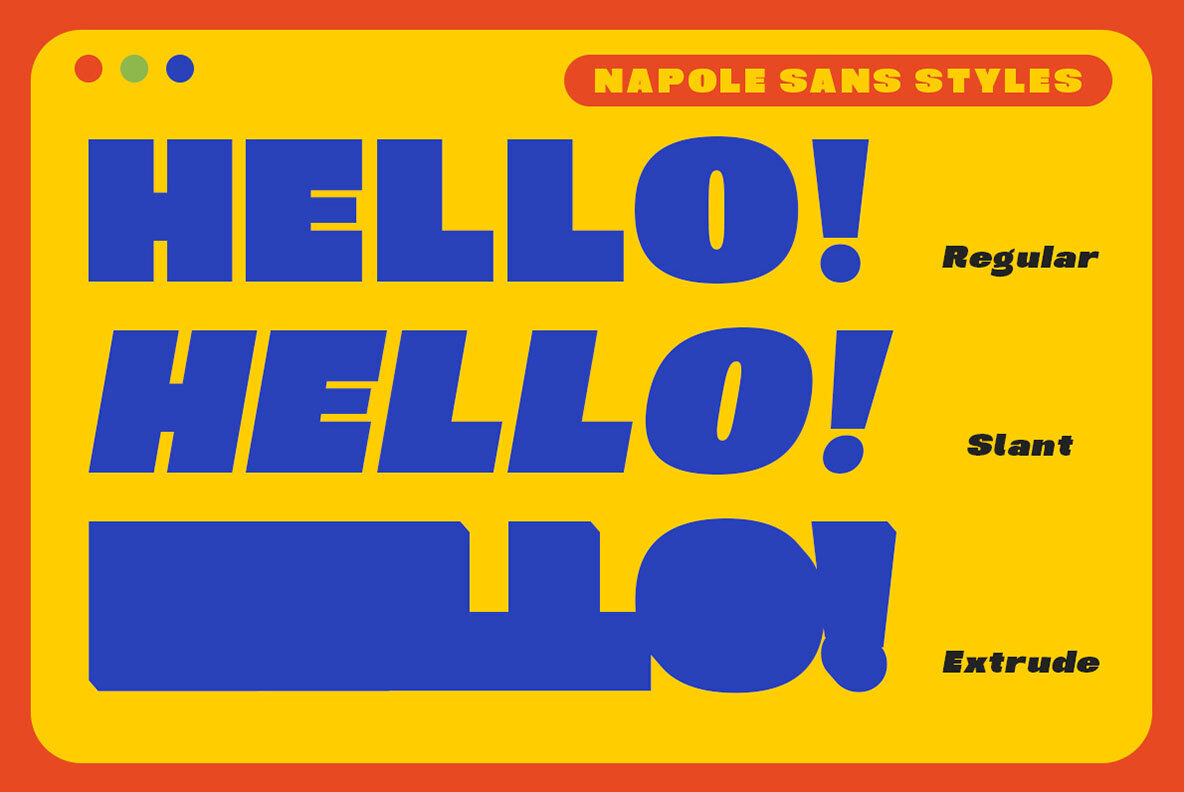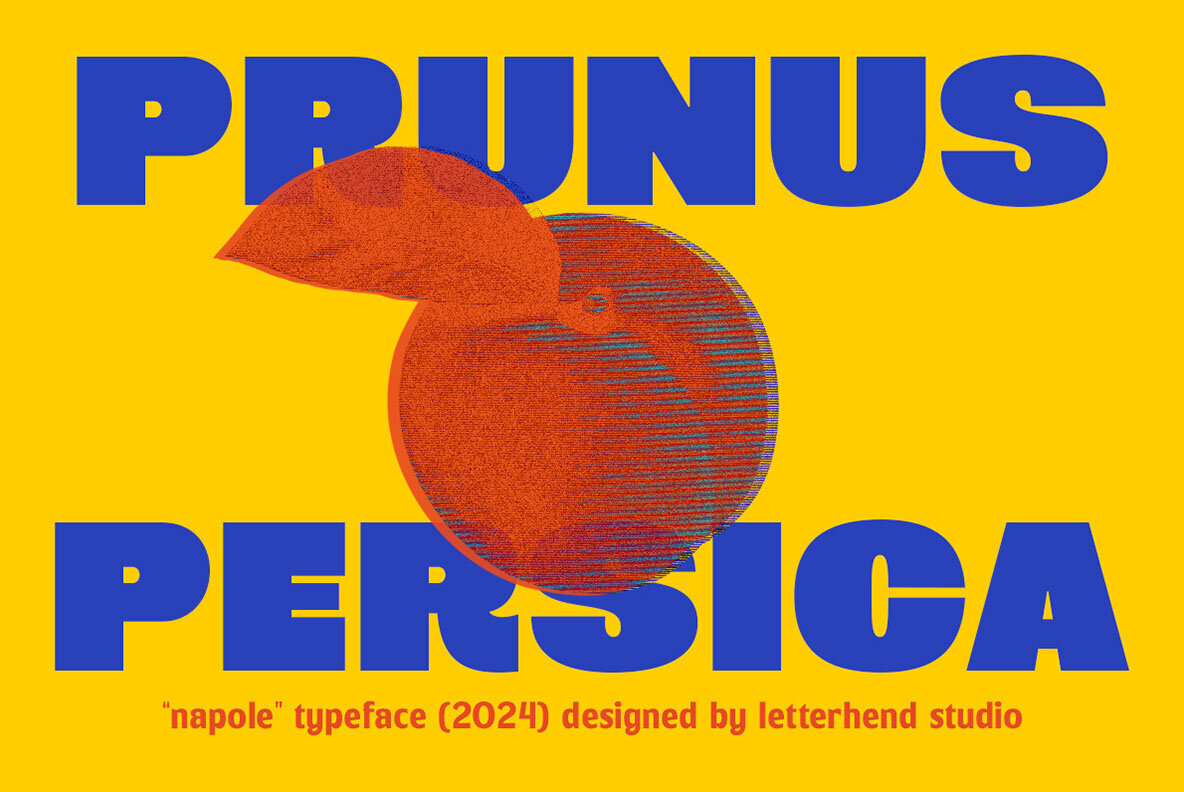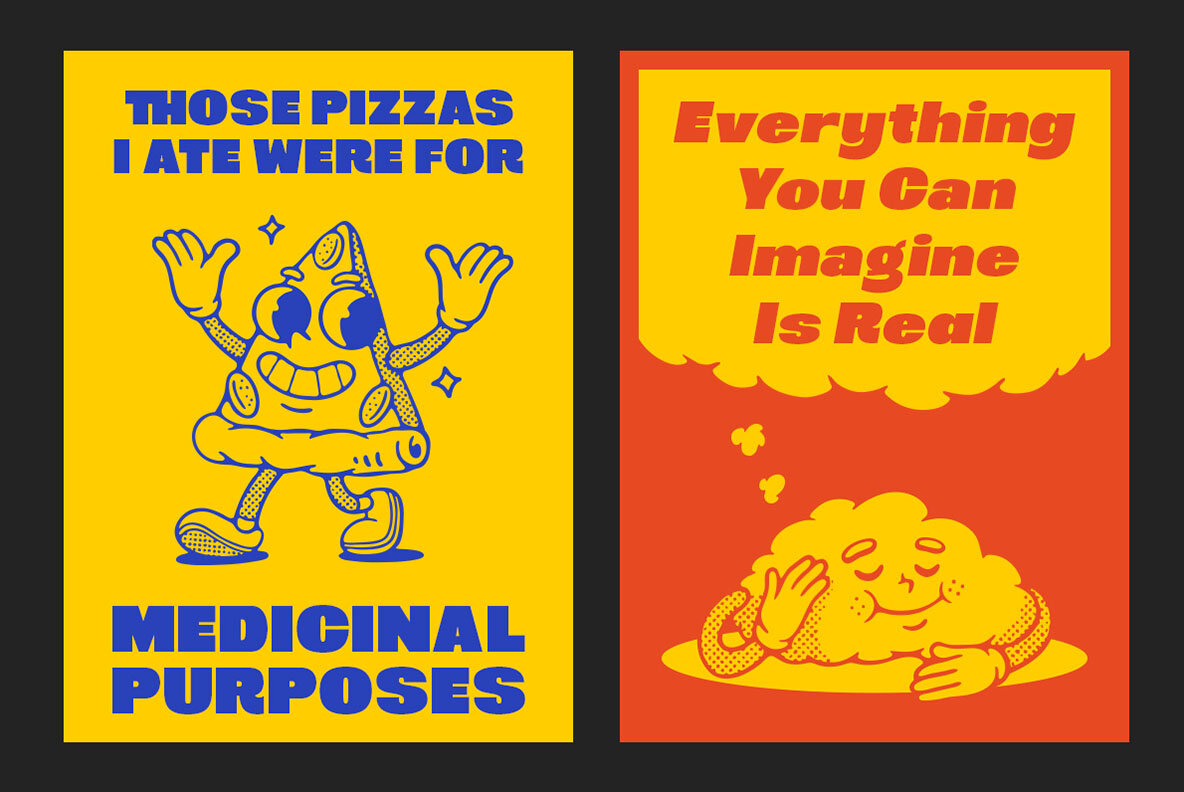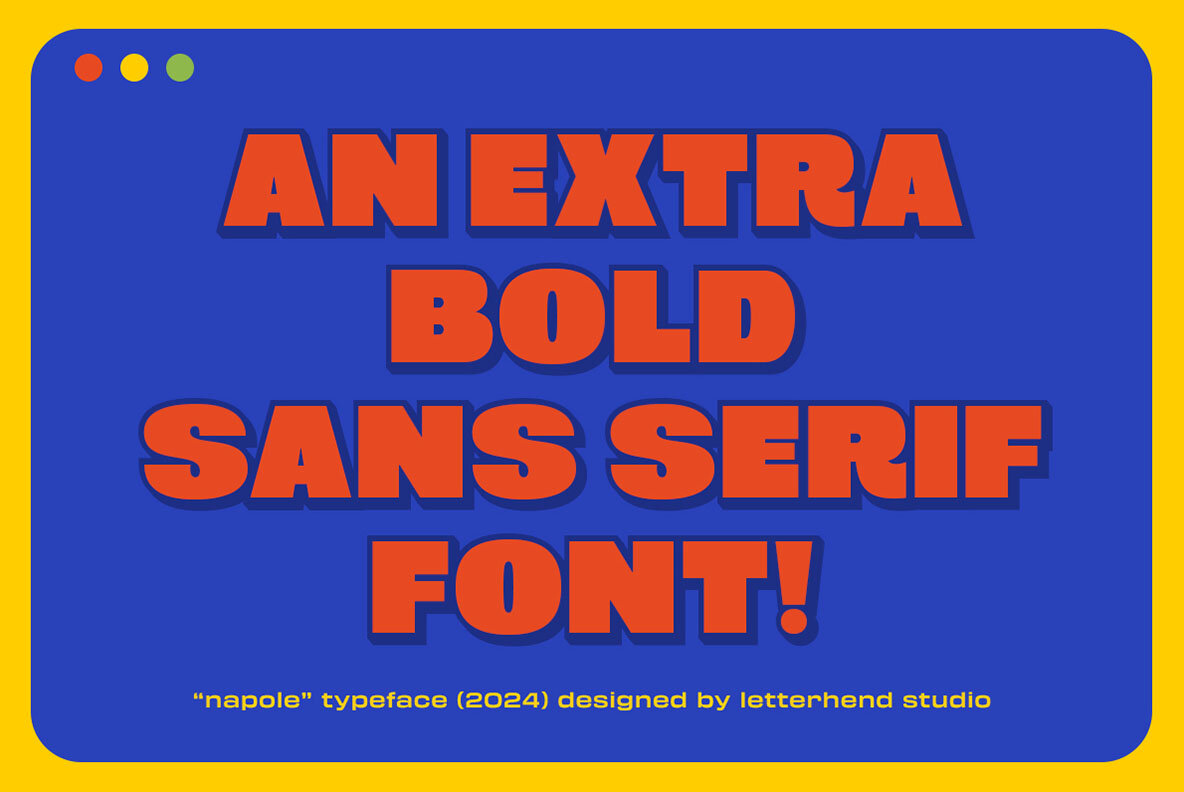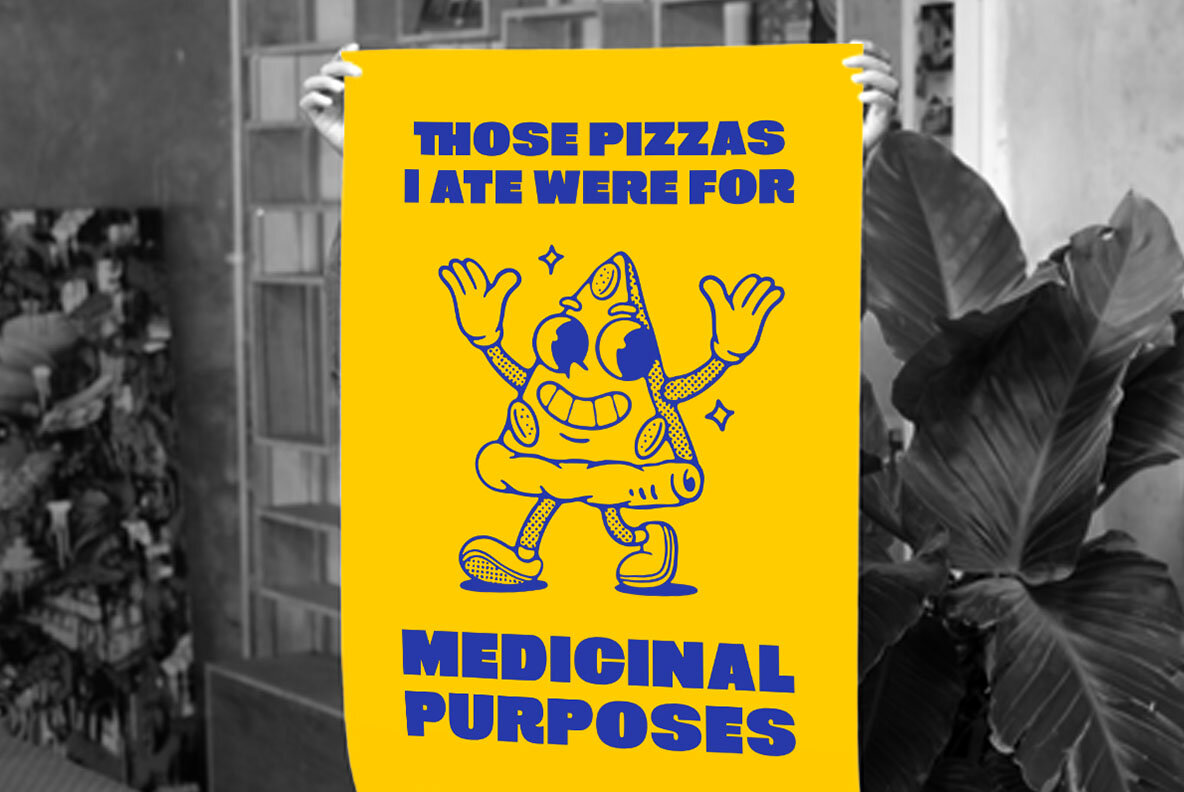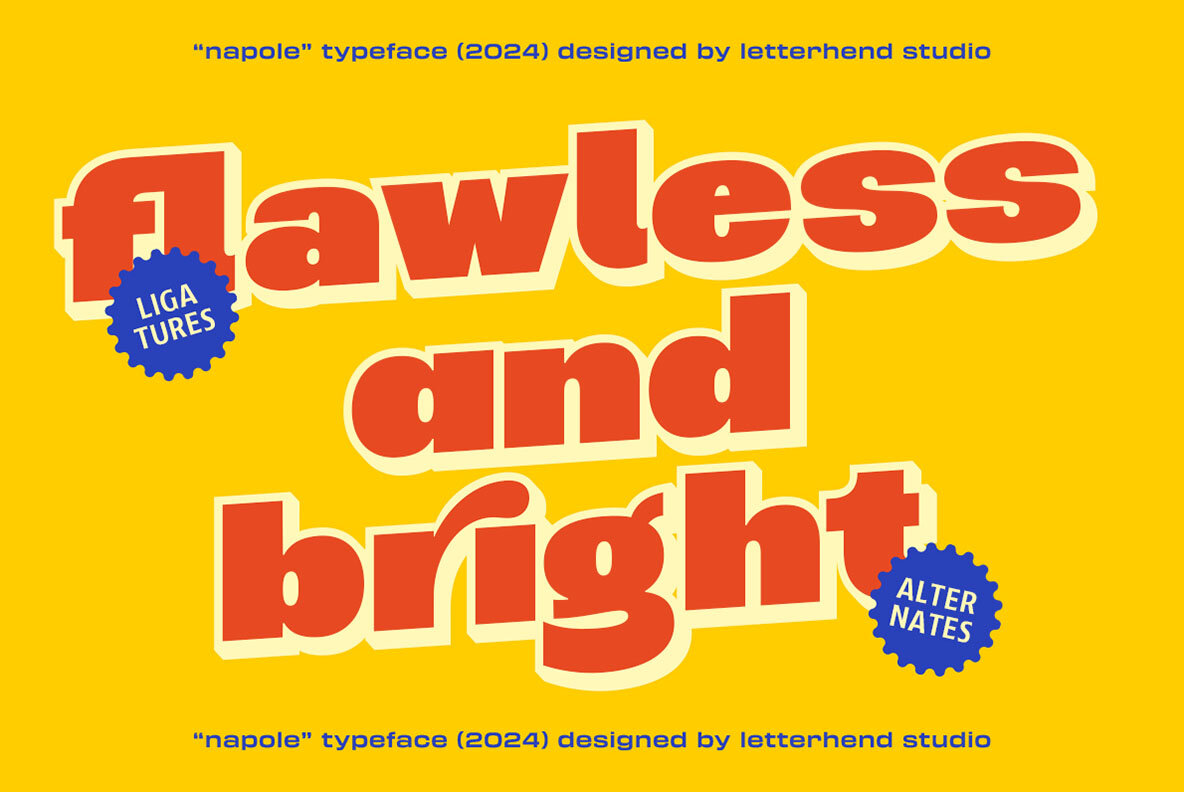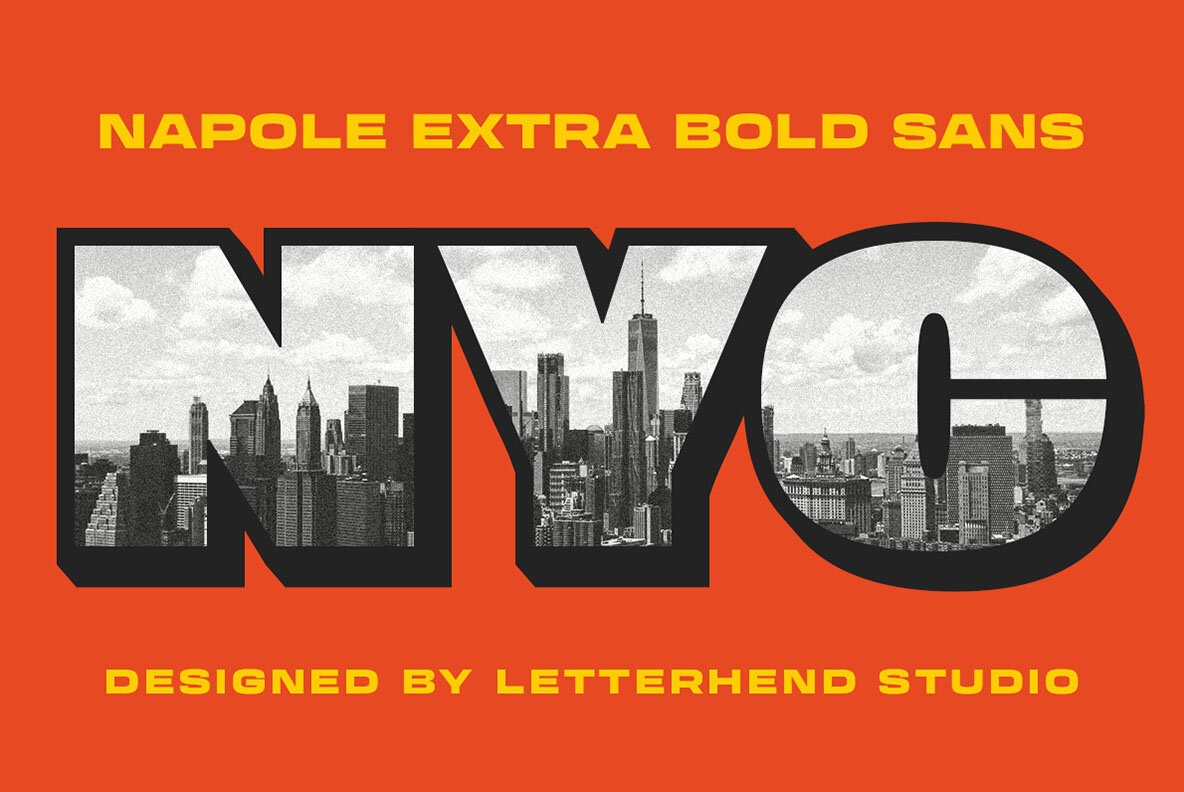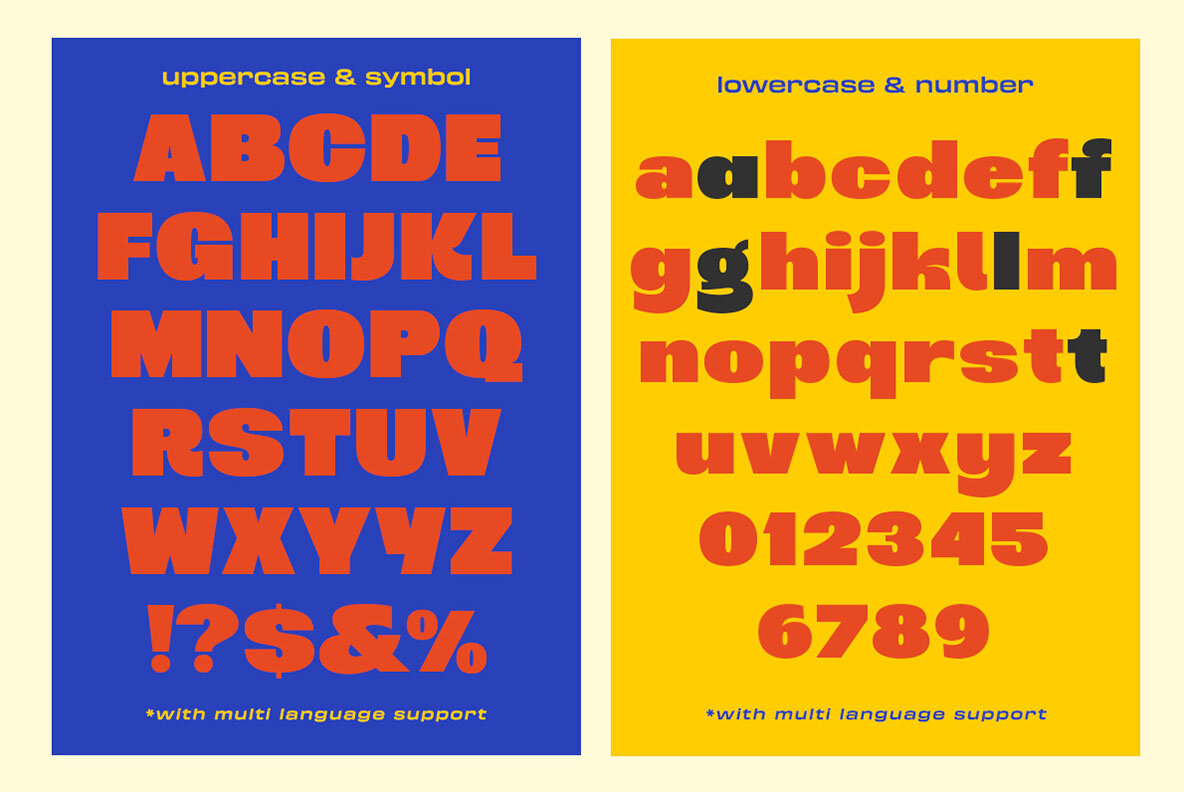
Napole is a heavy, bold, and contemporary sans-serif font designed to make a lasting impression. Its versatility comes from its slant and extrude versions, making it suitable for a wide range of applications—from formal to informal. Napole's clean lines, geometric shapes, and bold minimalism make it perfect for display purposes like headlines, logos, and titles. It's also ideal for creating quotes, invitations, labels, magazines, books, greeting cards, wedding stationery, fashion, makeup, novels, and advertising material. Its high-contrast characters ensure legibility at larger sizes while maintaining a sleek, modern, and urban aesthetic. Napole's versatility and bold design make it a great choice for: To discover more bold sans-serif fonts like Napole, check out our Sans-Serif Fonts collection. YouWorkForThem offers a wide selection of fonts designed to meet the needs of creative professionals. Get Napole today and make a bold statement in your design projects, available with flexible licensing for personal, commercial, and enterprise use.Napole: A Bold, Standout Sans-Serif Font for Graphic Design
Key Features of Napole
Why Choose Napole?
Ideal Uses for Napole